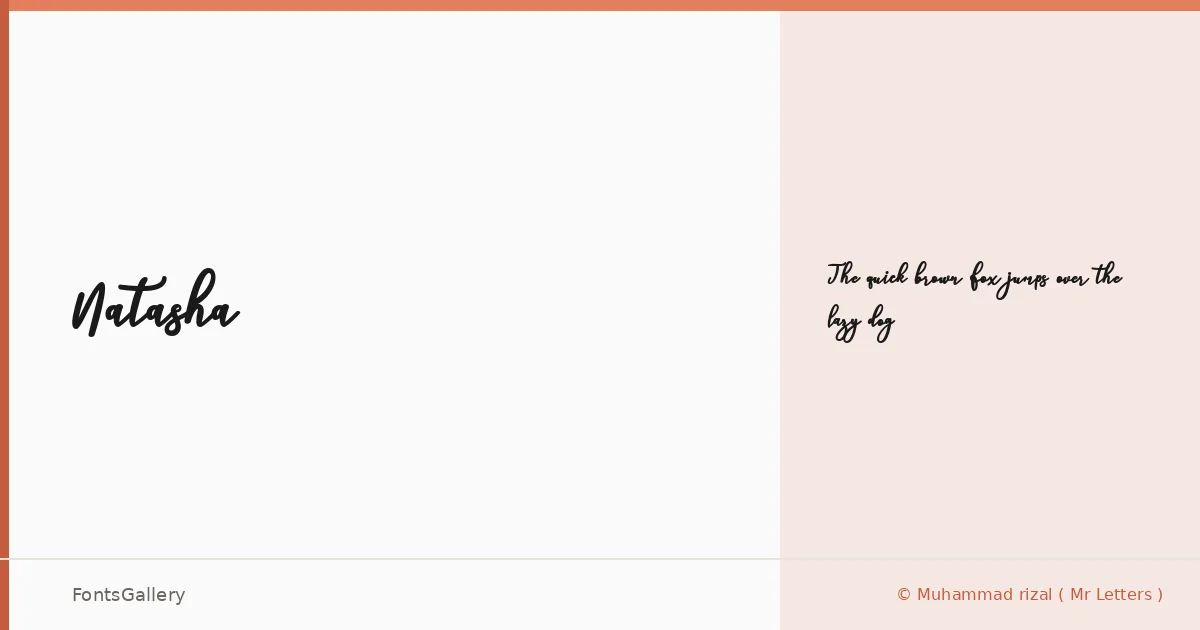
About Natasha Font
There is a particular kind of confidence in a handwritten face that commits fully to its curves — no hedging, no mechanical correction. This one comes from Muhammad Rizal (Mr Letters) and carries a classic, romantic sensibility that feels at home wherever ceremony and warmth matter. The Bold weight is the sole cut here, and it leans into that decision: the strokes are full, the rhythm deliberate, the letterforms shaped for occasions that deserve a little flourish.
Sitting squarely in the handwritten category, the family projects an elegant, romantic mood without slipping into the merely decorative. Because there is only the one style — Bold — the character is consistent and assertive across every use. Available in both TTF and OTF formats, it covers the Latin script and works at display sizes where the weight reads as richness rather than heaviness.
The natural habitat for this script is anywhere the occasion calls for intimacy and grace: wedding stationery, invitation cards, greeting cards, and the kind of branding or logo work that needs handmade warmth rather than corporate precision. It pairs well against clean, neutral companions — Helvetica keeps things grounded, while AQUA, Aranea, Abrade, and Aresink each offer their own counterpoint to the script's expressiveness.